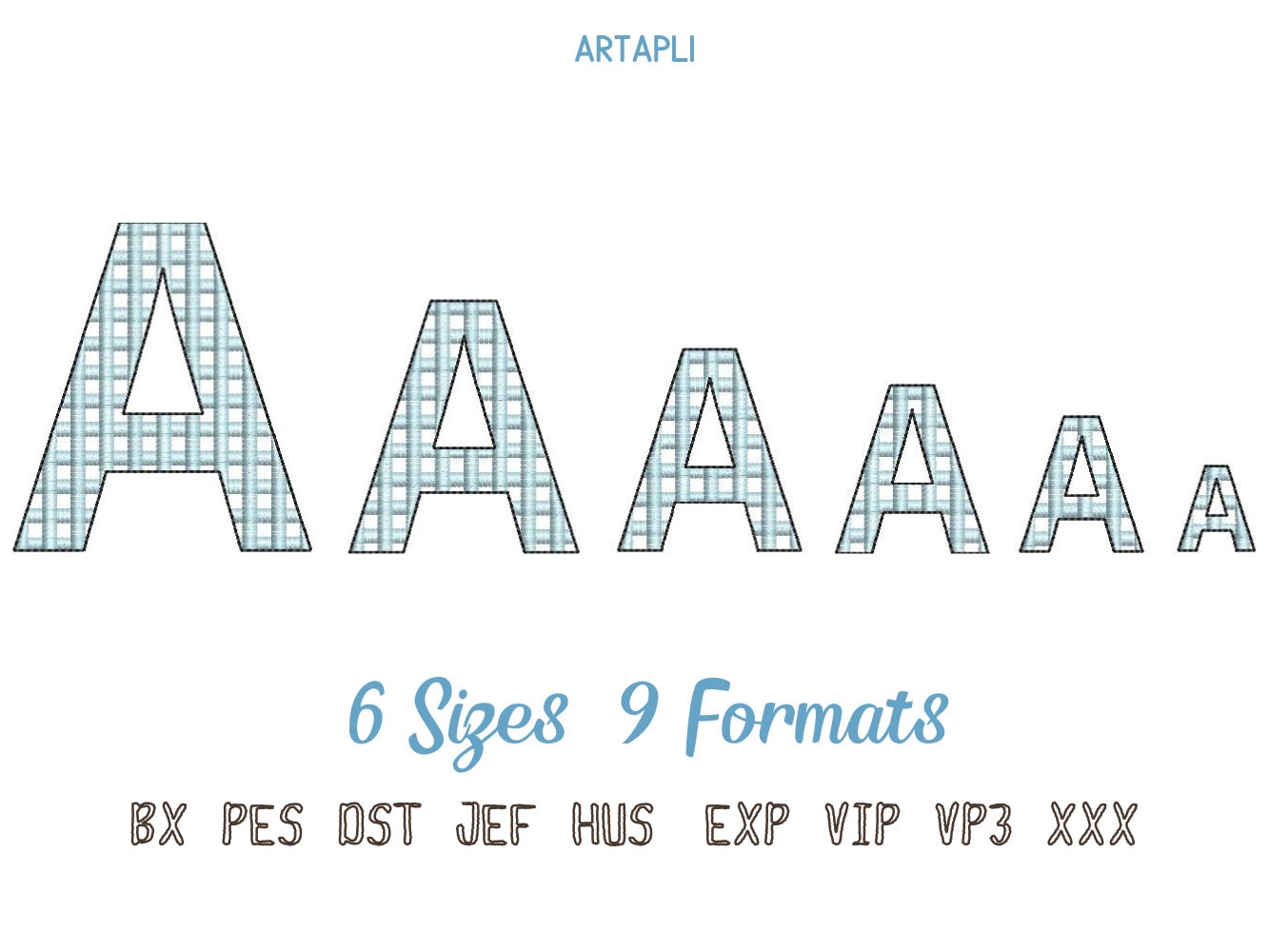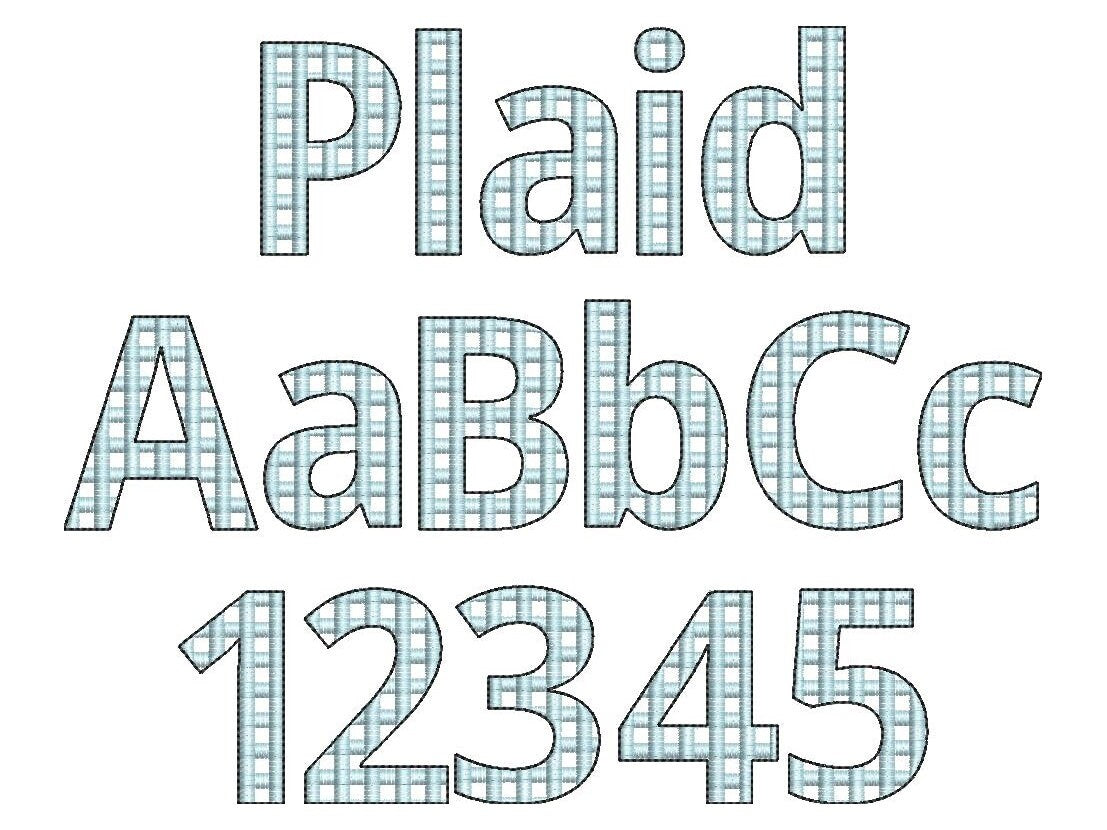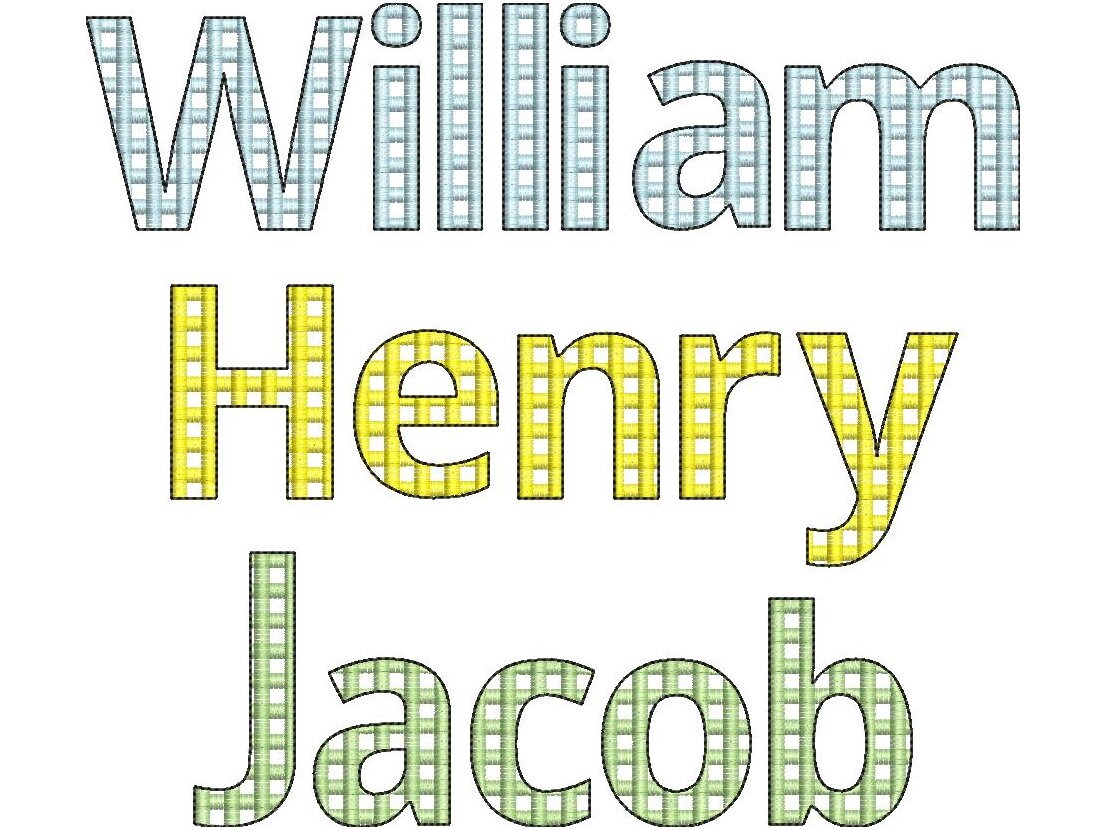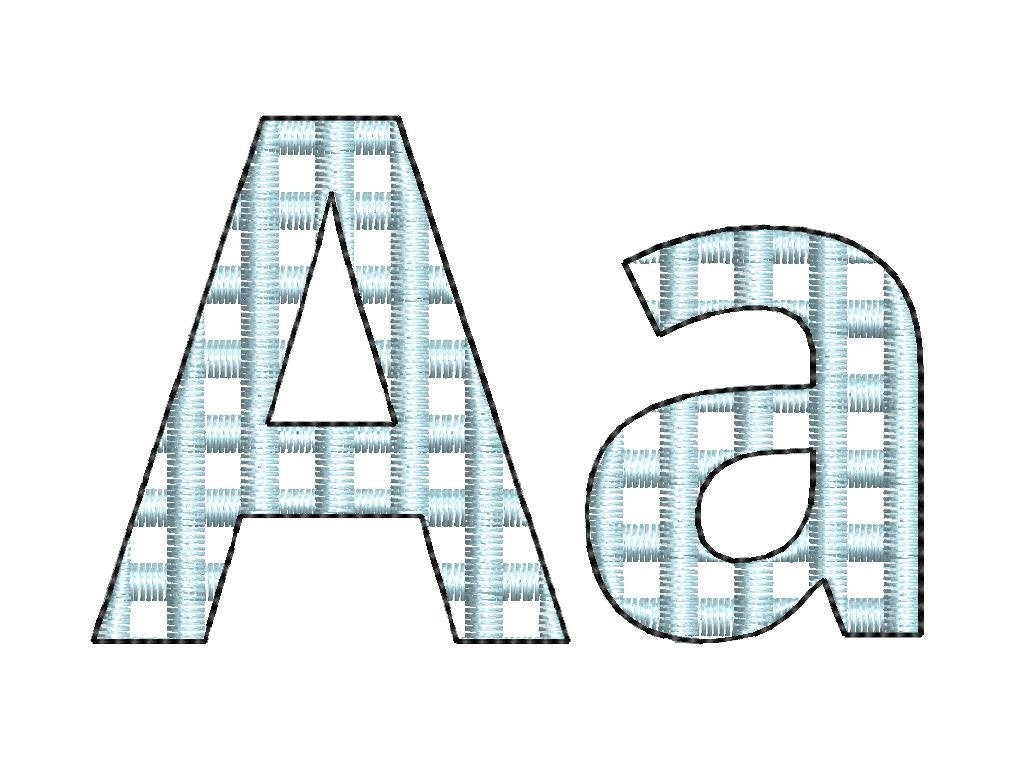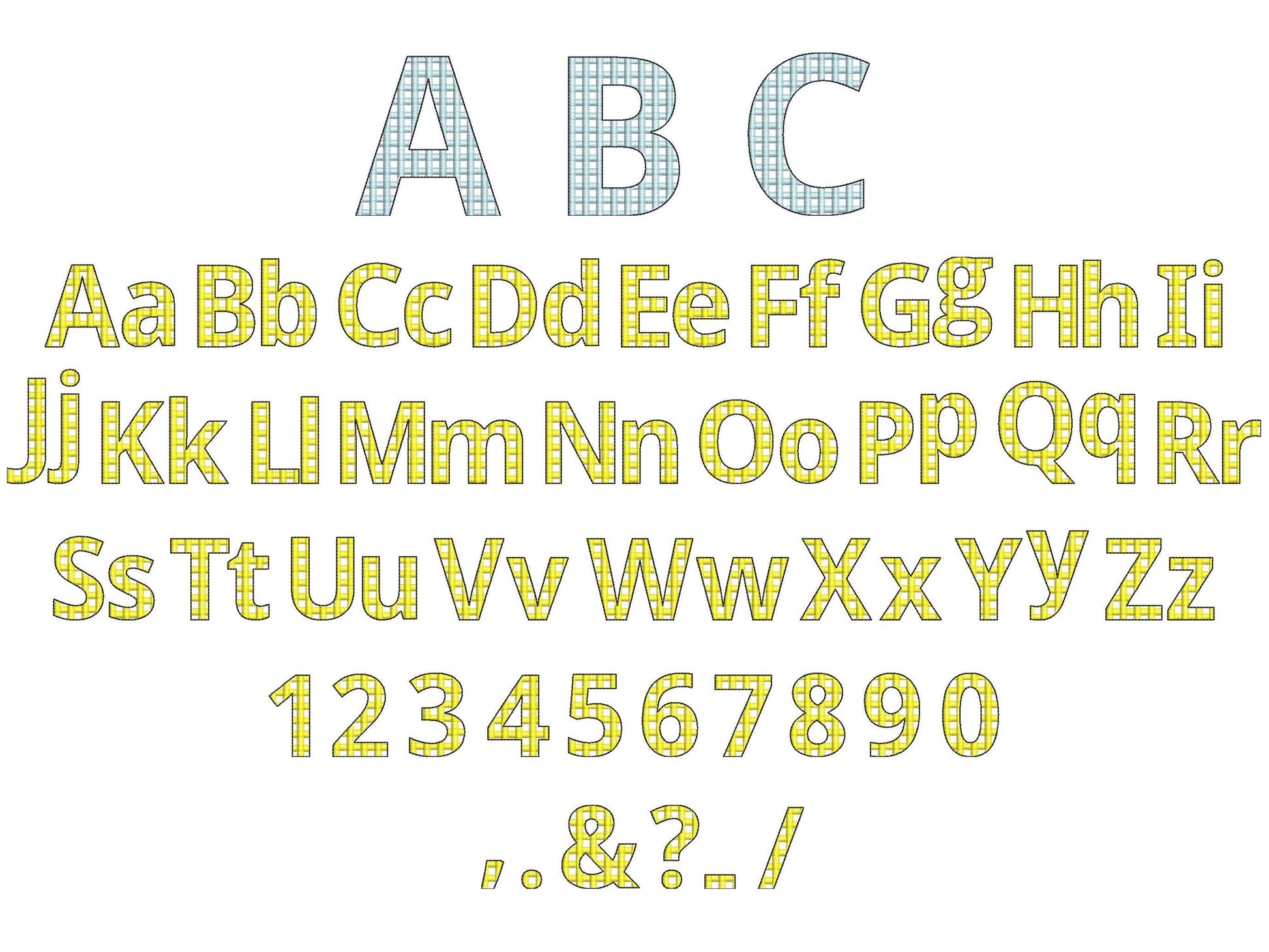
Or click to open the linkA buffalo check plaid font in light sketch stitch. Fun for kids' names, Christmas stockings, flannel shirts and pillows.
Uppercase and lowercase letters, numbers 0 to 9, plus &, period, comma, dash, question mark, exclamation mark and slash. Six sizes: 1, 1.5, 1.8, 2.2, 2.8 and 3.6 inches. The checks are stitched in and the fabric shows through.